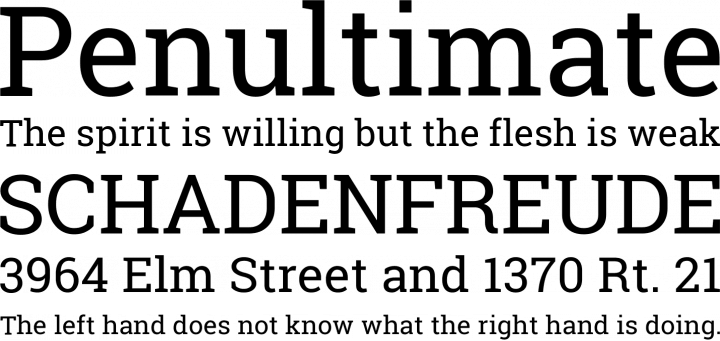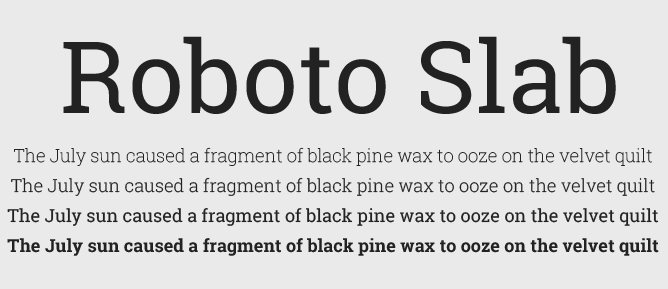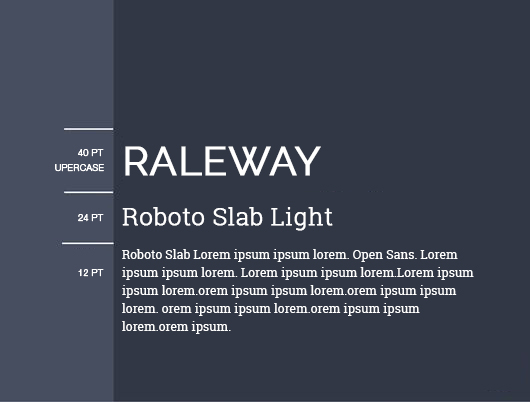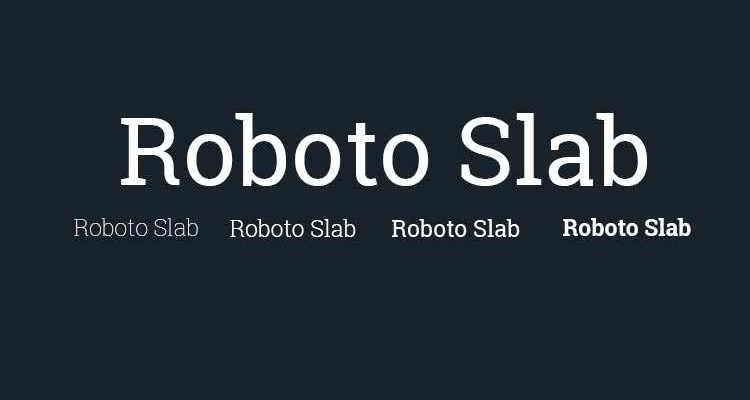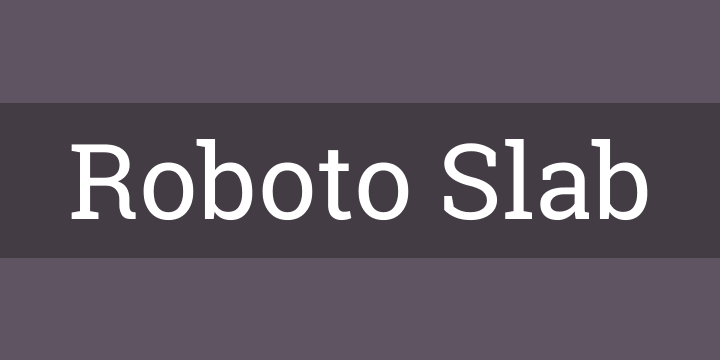
Roboto Slab
Roboto has a dual nature. It has a mechanical skeleton and the forms are largely geometric. At the same time, the font features friendly and open curves. While some grotesks distort their letterforms to force a rigid rhythm, Roboto doesn’t compromise, allowing letters to be settle in to their natural width.
This is the Roboto Slab family, which can be used alongside the normal Roboto family and the Roboto Condensed family.
Design: Christian Robertson